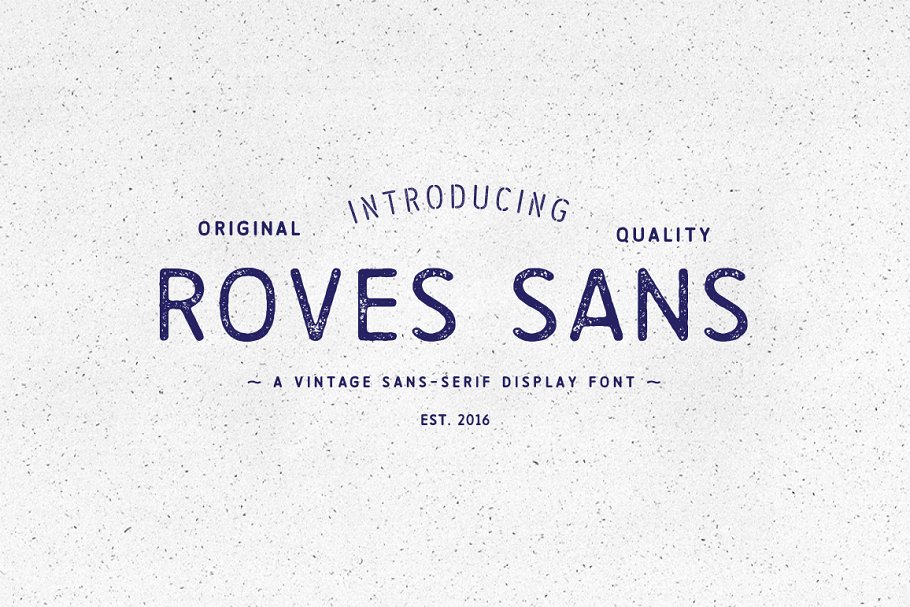
About the Roves Sans Font
Roves Sans – 25% OFF SaleRoves is a font family dedicated to exploration, adventure and the early merchants of history, The word rove means “a journey, especially one with no specific destination; an act of wandering”, The Roves Sans part of the family consists of a regular and bold weight in rough and press versions, Create great looking typography that has a great rust vintage feel to it which gives the user an authentic look and feel in what ever project it is used in be it a poster, brochure, website, logotype